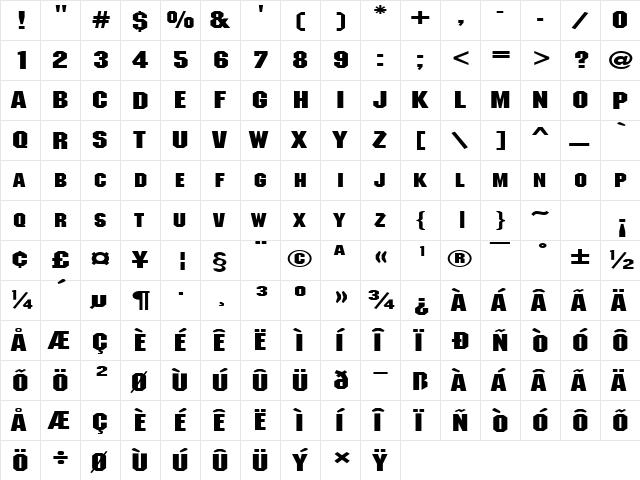
MetalEncasementExtended Regular Font Preview
MetalEncasementExtended Regular
Design Context for MetalEncasementExtended Typeface
MetalEncasementExtended takes a measured approach to typography — its balanced proportions and neutral character make it a reliable workhorse for both digital and print work.